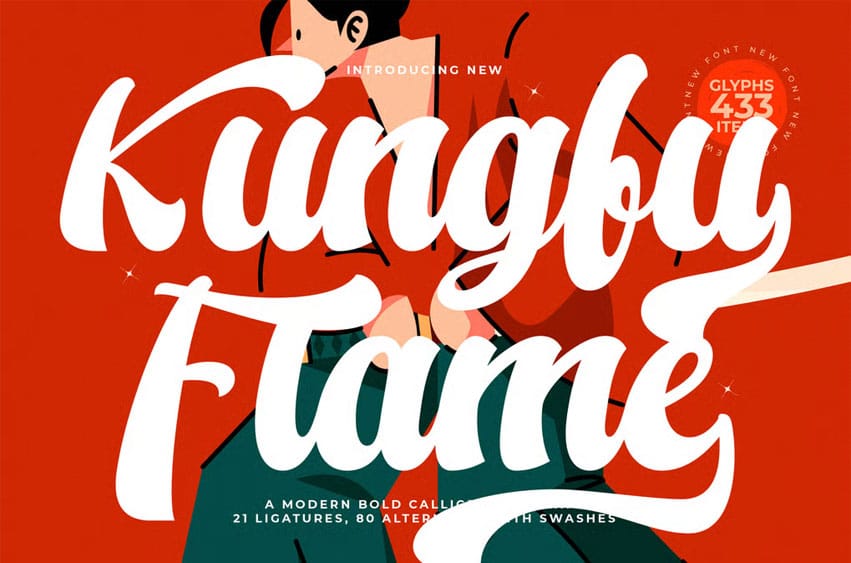
Kungfu Flame Font is a bold modern calligraphy display font with energetic strokes, dynamic curves, and expressive swashes that bring movement and personality to every design. Inspired by action-packed brush lettering with a playful contemporary twist, this typeface is perfect for posters, branding, packaging, merchandise, movie titles, sports themes, social media graphics, and any project that needs bold character and artistic flair.
With 433 glyphs, 21 ligatures, and 80 stylistic alternates, Kungfu Flame gives designers powerful versatility and a lively handwritten style that stands out instantly.